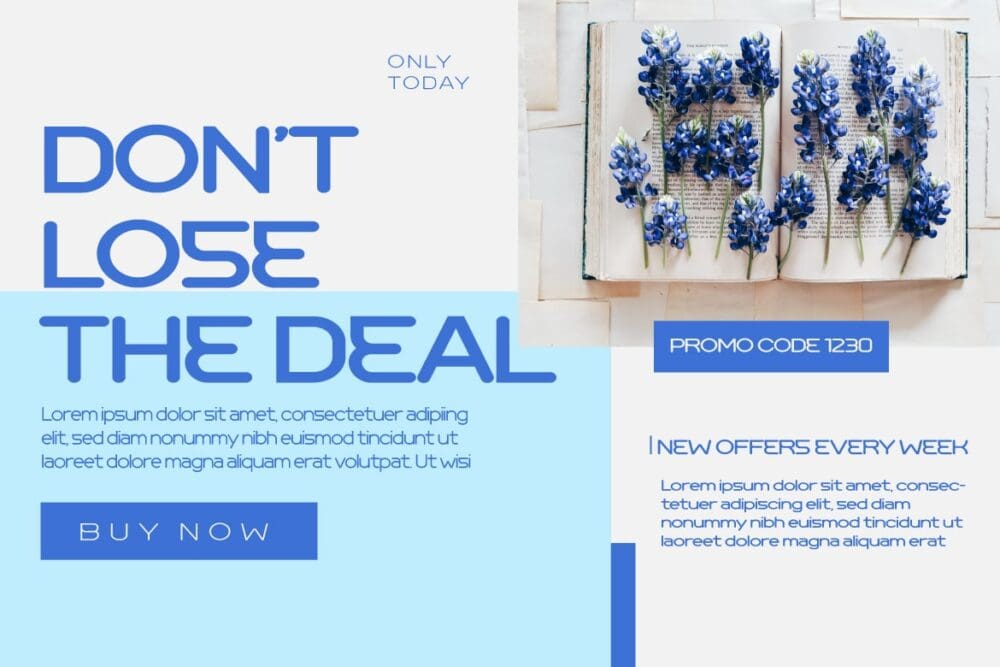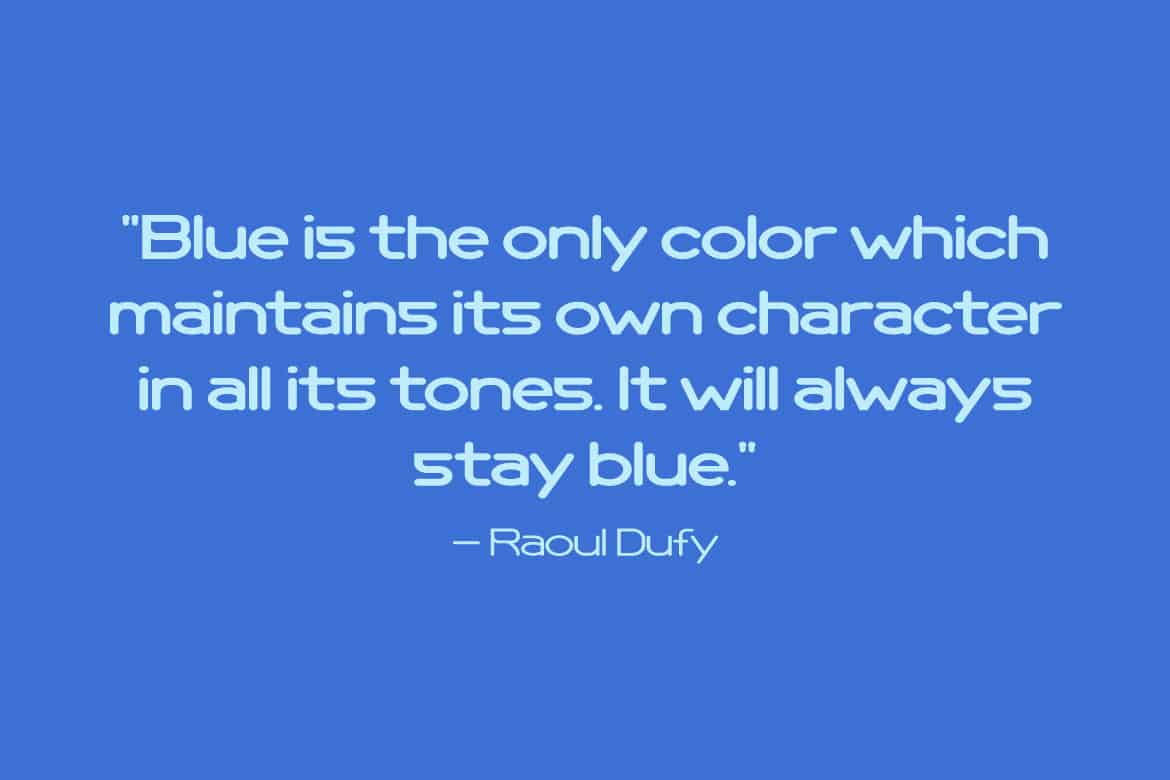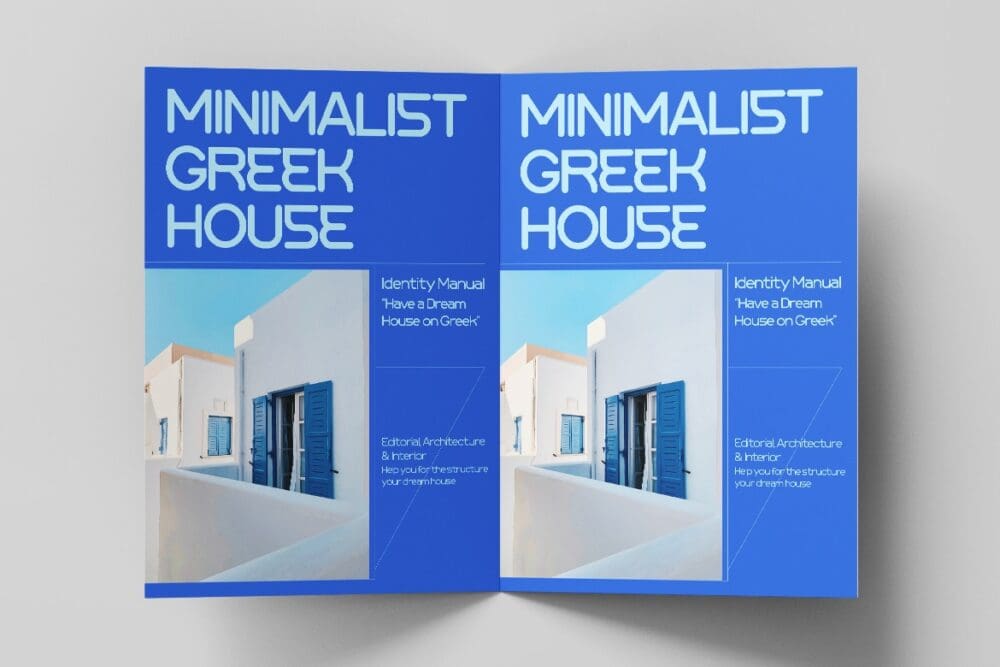
Rebog Font
Rebog, our newest Sans Serif Font, is a typeface that is ideal for a variety of specific tasks. See how adaptable it is indifferent projects; of course, your project will seem distinctive and appealing from the corner of your eye, making it easier for your audience to remember it.